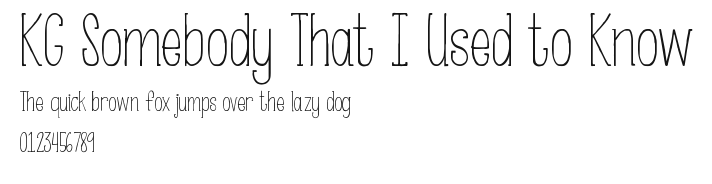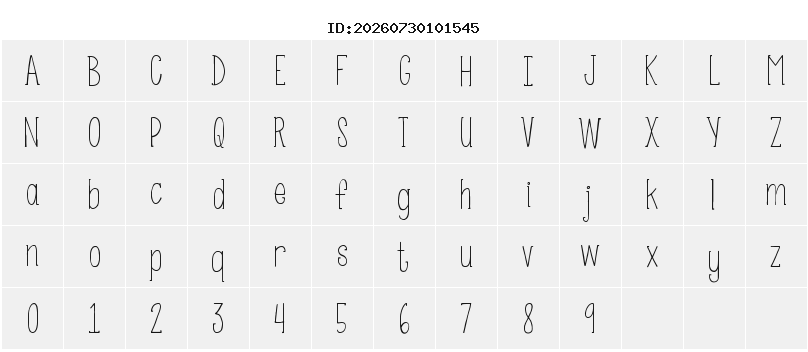
KG Somebody That I Used to Know Preview
• Font Name: KG Somebody That I Used to Know
• Font ID: KimberlyGeswein: KG Somebody That I Used to Know: 2012
• Full Font Name: KG Somebody That I Used to Know
• Version: Version 1.000 2012 initial release
• PostScript Name: KGSomebodyThatIUsedtoKnow
• Character Count: 325
• Designer: Kimberly Geswein
• Manufacturer: Kimberly Geswein
About KG Somebody That I Used to Know.ttf
KG Somebody That I Used to Know.ttf is a modern, elegant sans-serif font designed for ultimate readability and visual harmony. Perfect for branding, headlines, web design, and print materials.